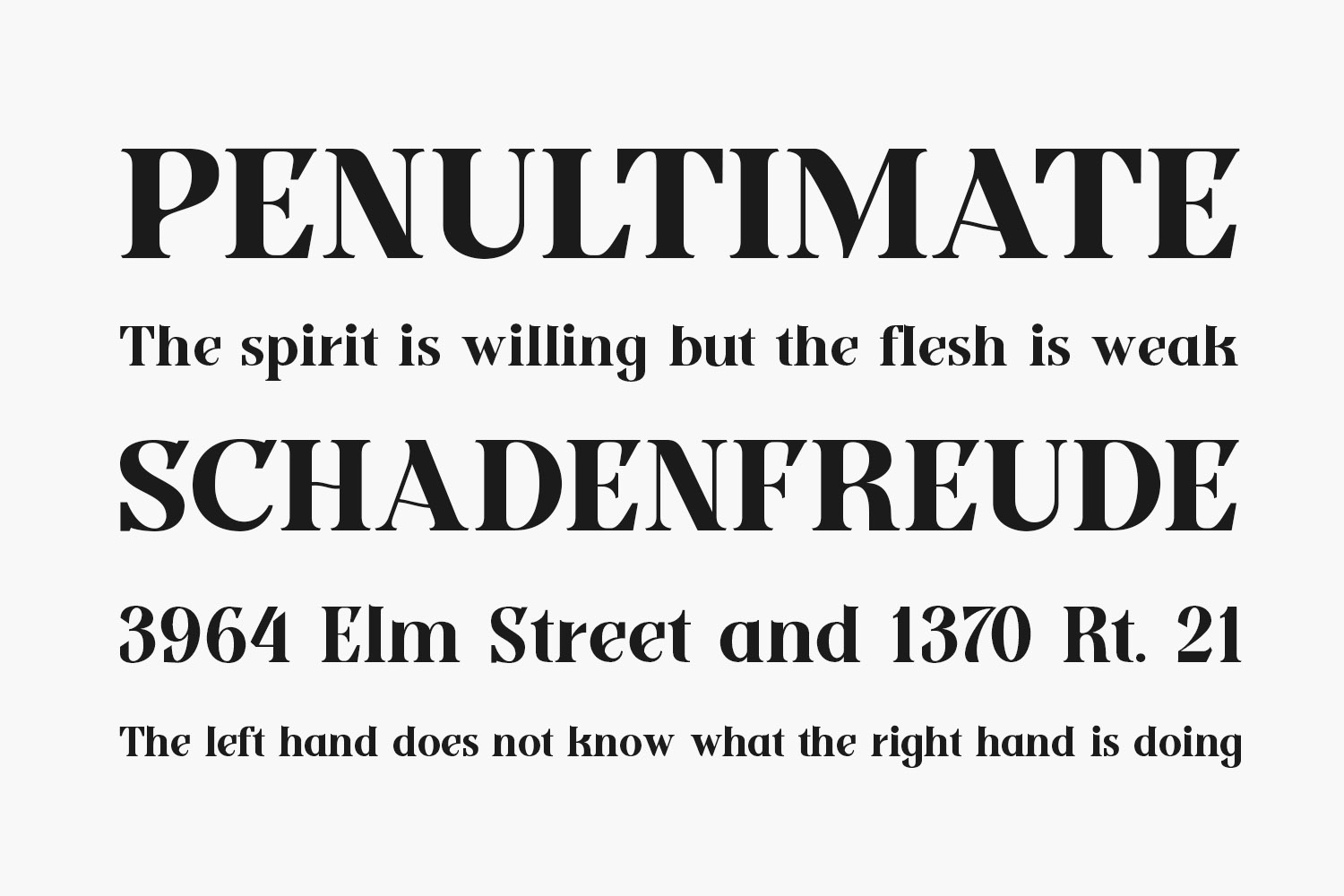
Ground Castle Free Font is a bold and elegant serif font. It is defined by smooth curves and is perfect for fashion branding or editorial designs. Add it confidently to your projects, and you will love the results. Ground Castle Free Font was designed by Letterhend Studio and is free for personal use only. Please purchase the full version for commercial use.